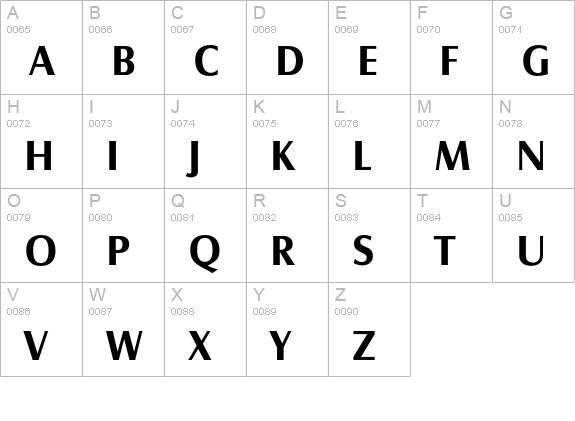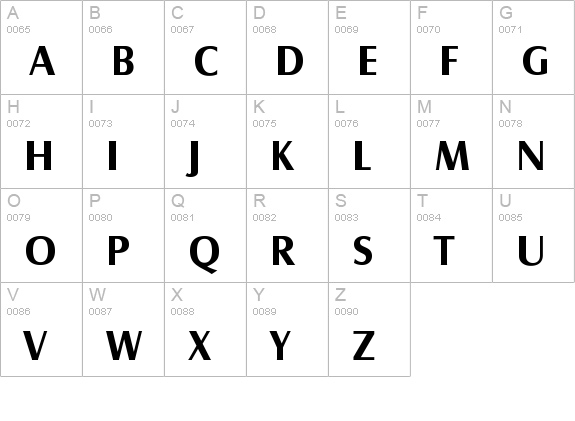
Salzburg-DemiBold is a sub-bold, structured variant in the Salzburg typeface family \xE2\x80\x94 well suited to sub-headlines and emphasised passages.
Salzburg-DemiBold font is a stunning typeface that exudes elegance and sophistication. Its bold weight commands attention and adds a touch of confidence to any design project. With its clean lines and sharp edges, Salzburg-DemiBold effortlessly combines modernity with a classic appeal. This font is perfect for headlines, logos, and any other design element that requires a strong and impactful presence. Its versatility allows it to be used across various mediums, from print to digital, making it a valuable asset for designers and creatives alike. One of the best things about Salzburg-DemiBold is that it is free. Yes, you read that right – this remarkable font can be downloaded for free at FontsMarket.com. This means that you can enhance your designs with this exceptional typeface without any financial burden. Whether you are a professional designer looking to elevate your work or a hobbyist exploring the world of typography, Salzburg-DemiBold provides you with a high-quality font option that won't break the bank. So don't miss out on this amazing opportunity to add Salzburg-DemiBold to your font collection. Head over to FontsMarket.com and download it today. Elevate your designs with the beauty and impact of Salzburg-DemiBold – a font that is both stunning and freely available for you to enjoy.